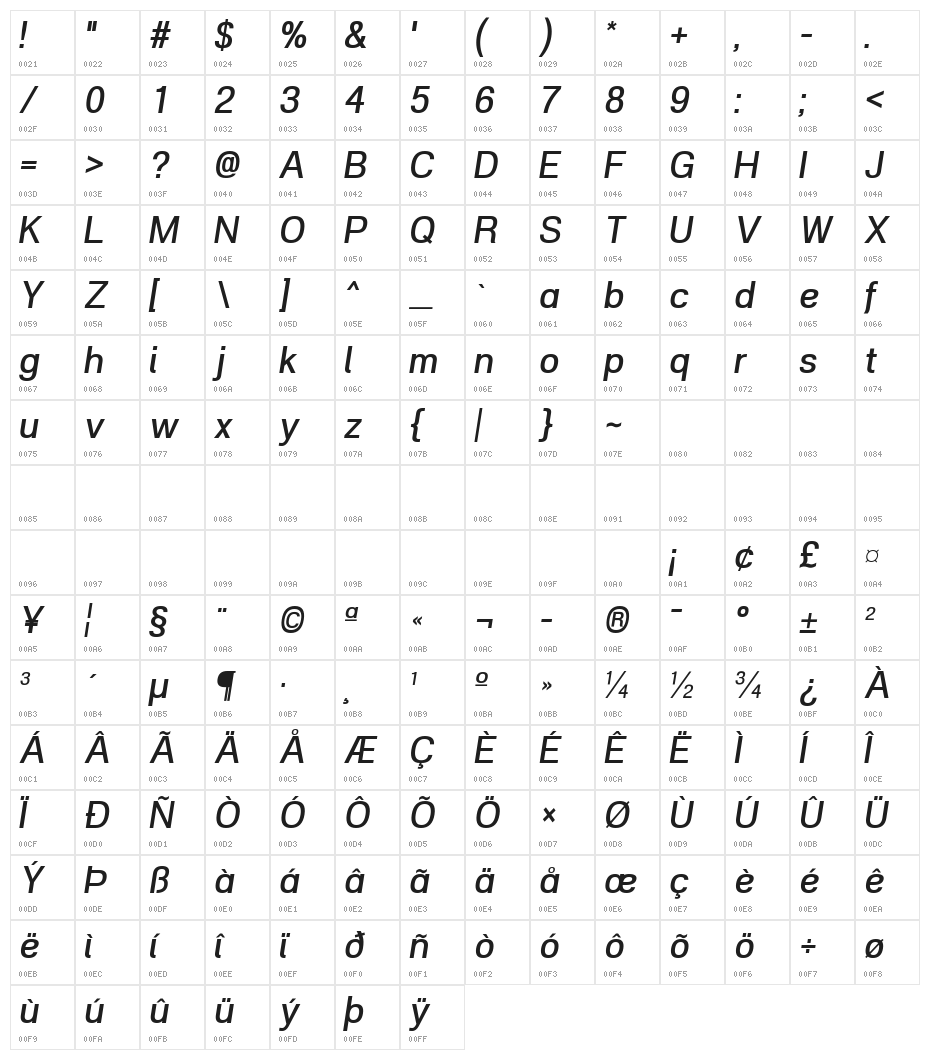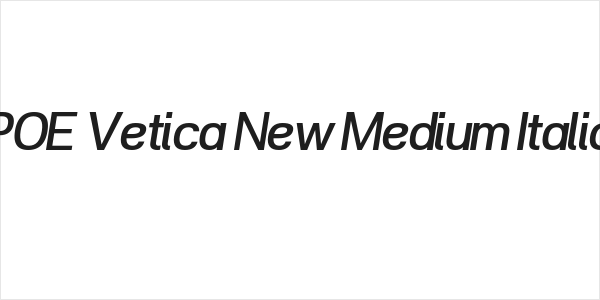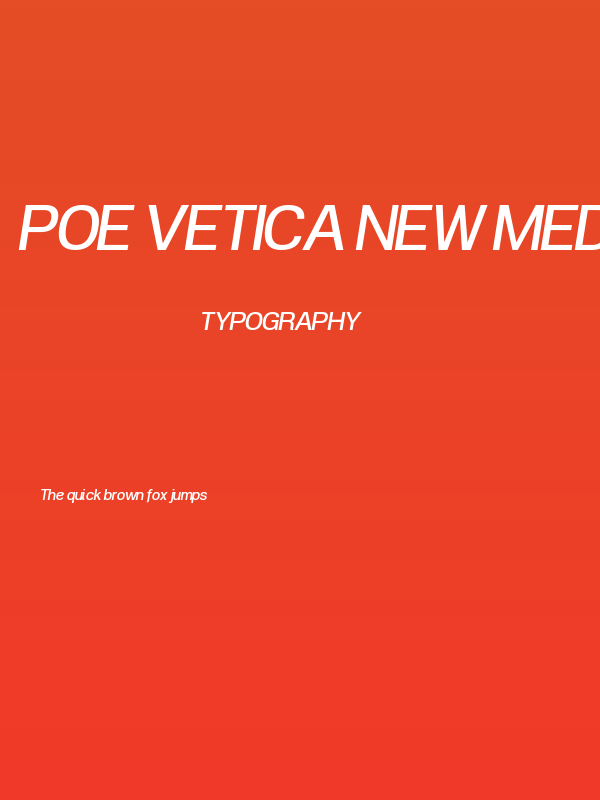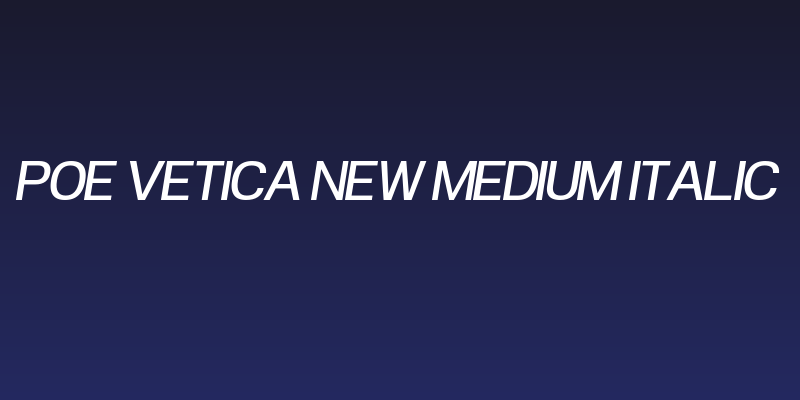
POE Vetica New Medium Italic Font
POE Vetica New Medium Italic Description
This font exhibits a sleek, modern sans-serif style with a medium weight and italicized form. The characters are slightly slanted, giving a dynamic and forward-moving appearance. The strokes are consistent, with a medium contrast that maintains readability while adding a touch of elegance. The uppercase and lowercase letters are well-proportioned, and the numerals are clear and distinct. Special characters are included, enhancing its versatility for various applications. The overall design is clean and professional, suitable for contemporary design projects.